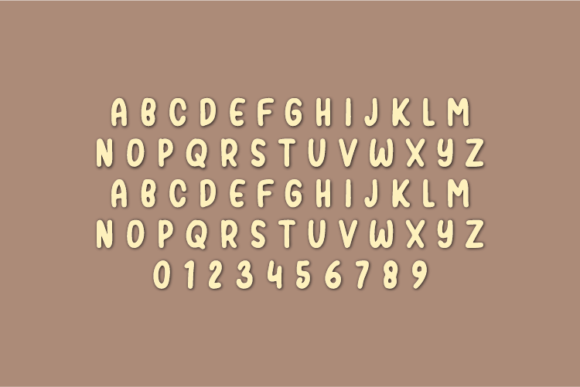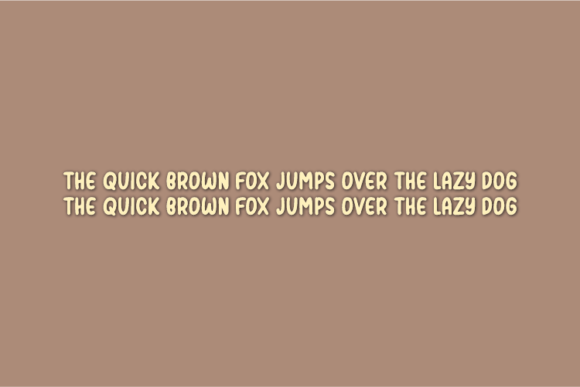
Cheesecake Font
About Cheesecake Font
Cheesecake is a clean and neat handwritten font. No matter the topic, this font will be an incredible asset to your fonts’ library, as it has the potential to elevate any creation.